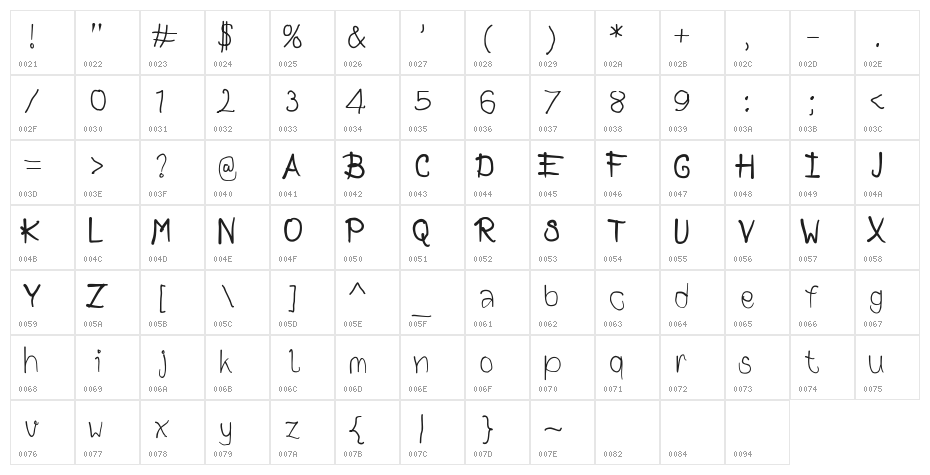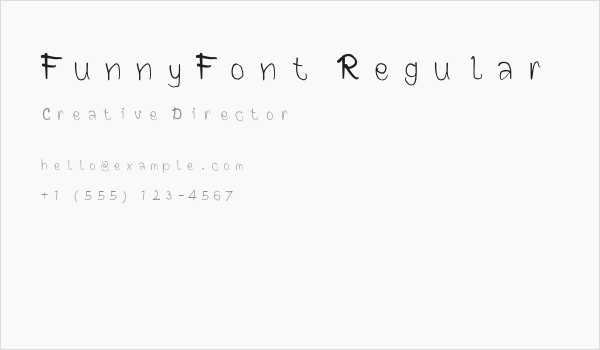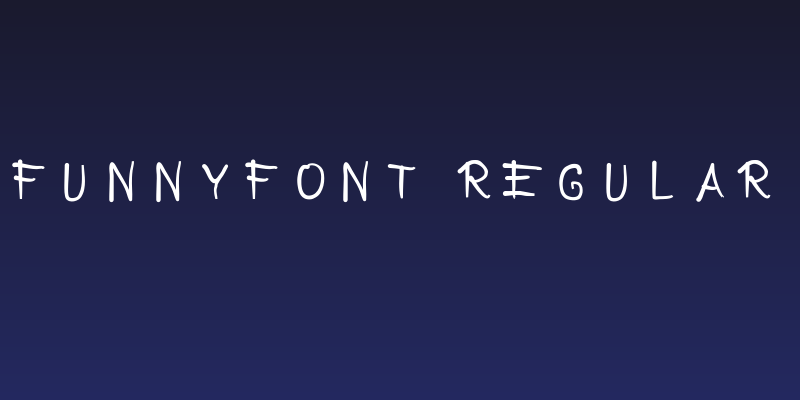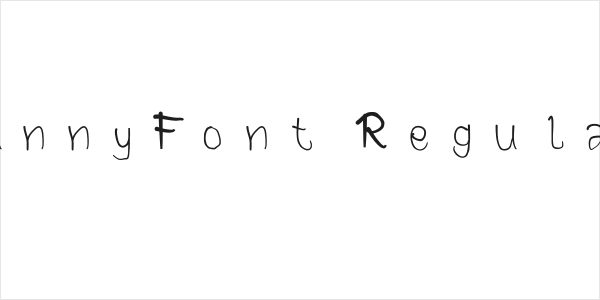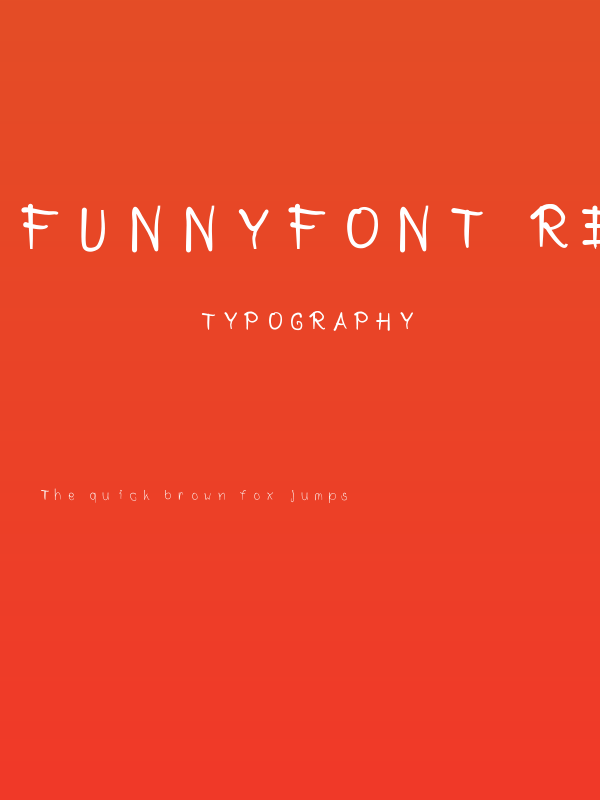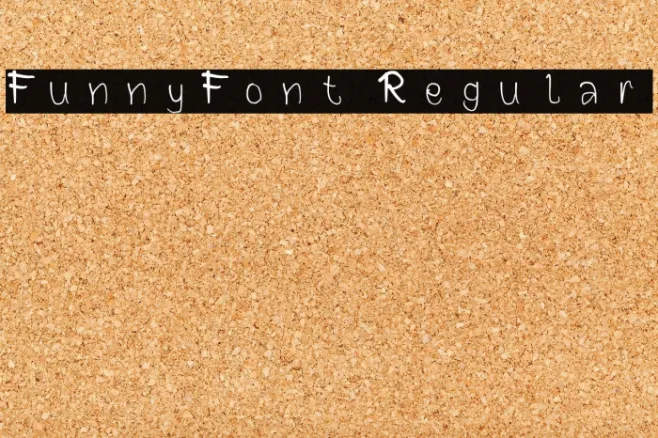
FunnyFont Regular Font
FunnyFont Regular Description
This font features a playful and whimsical design, characterized by its irregular and quirky letterforms. The uppercase letters exhibit a mix of straight and curved lines, giving them a hand-drawn appearance. The lowercase letters maintain a consistent style, with a slightly more rounded and softer look. The numbers are similarly styled, with a unique flair that adds to the overall playful aesthetic. Special characters are included, matching the font's distinctive style. This font is perfect for projects that require a fun and informal touch, such as children's books, playful branding, or creative invitations.
FUNNYFONT-REGULAR UPPERCASE
FUNNYFONT-REGULAR LOWERCASE
FUNNYFONT-REGULAR OTHER CHARS
| Use Case | Headlines, Casual text, Creative projects |
| Proposed Projects | Children's books, playful branding, creative invitations, casual posters. |